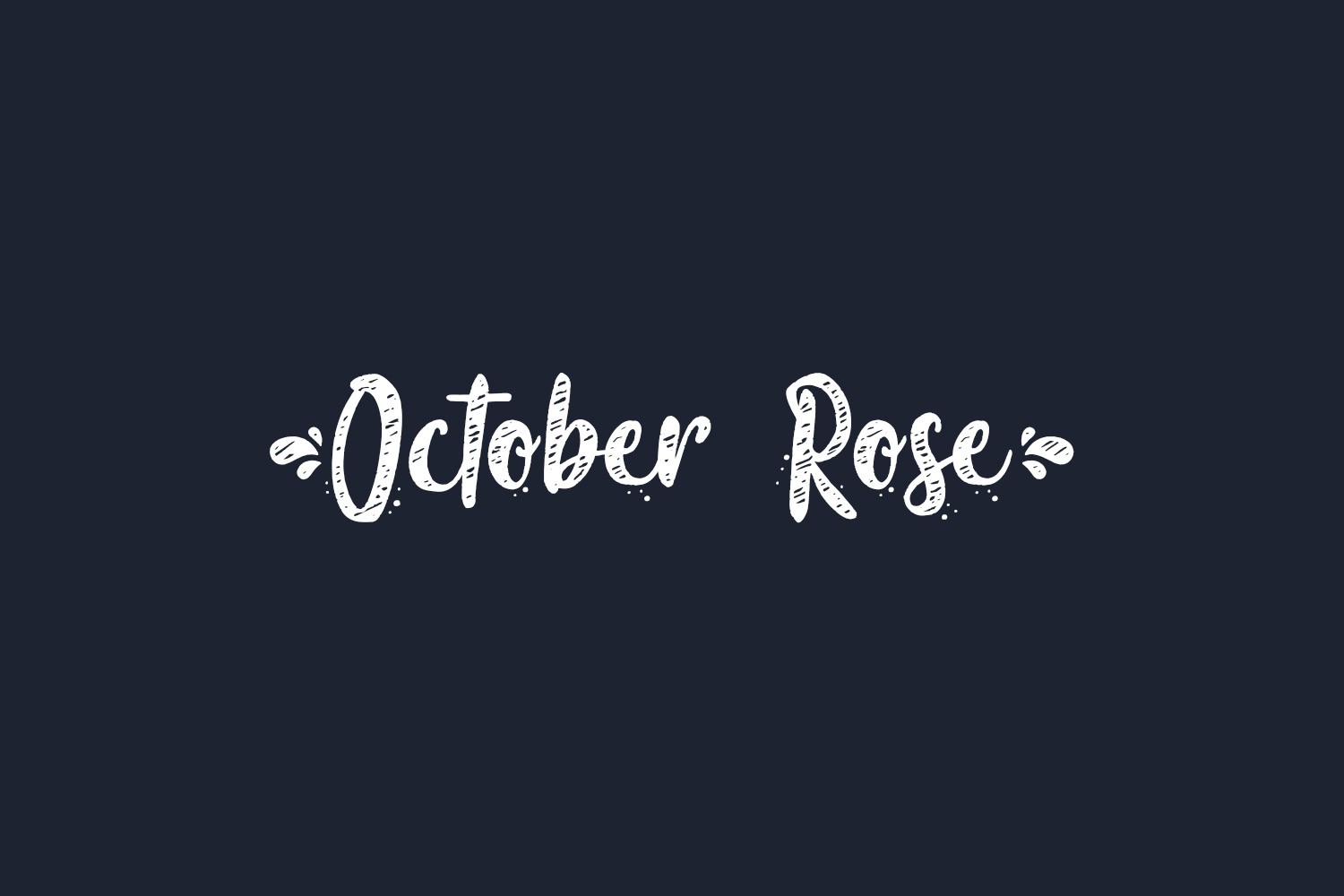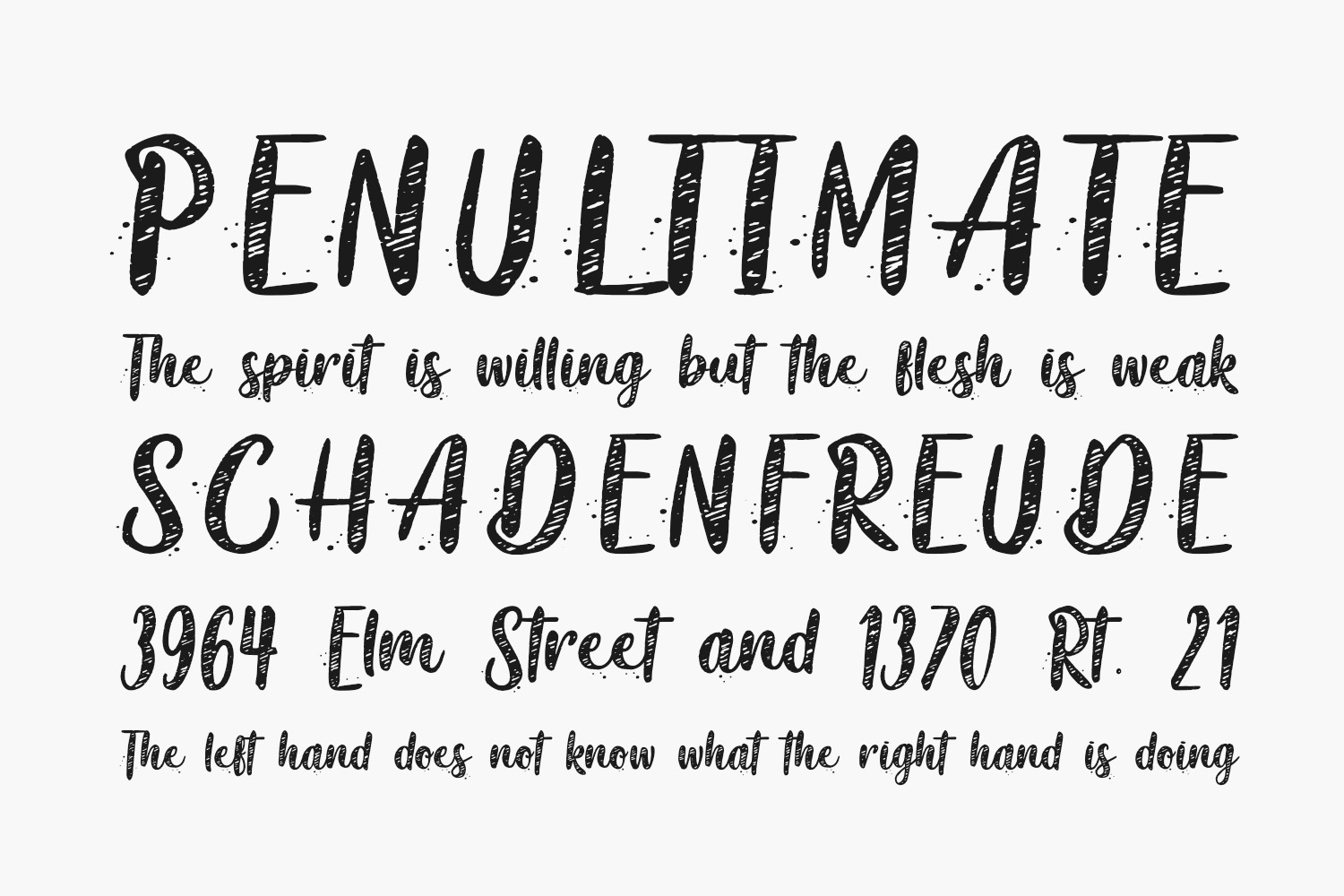
October Rose Free Font is a cute and casual handwritten font with an incredibly friendly feel. It’s perfect for logos, branding, social media posts, greeting cards, and much moreю was designed by Typhoon Type™ and is free for personal use only. Please purchase the full version for commercial use.